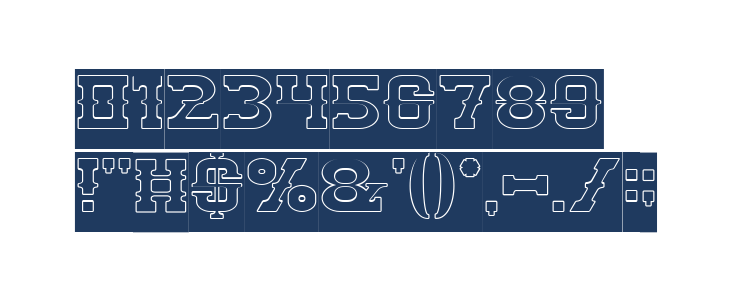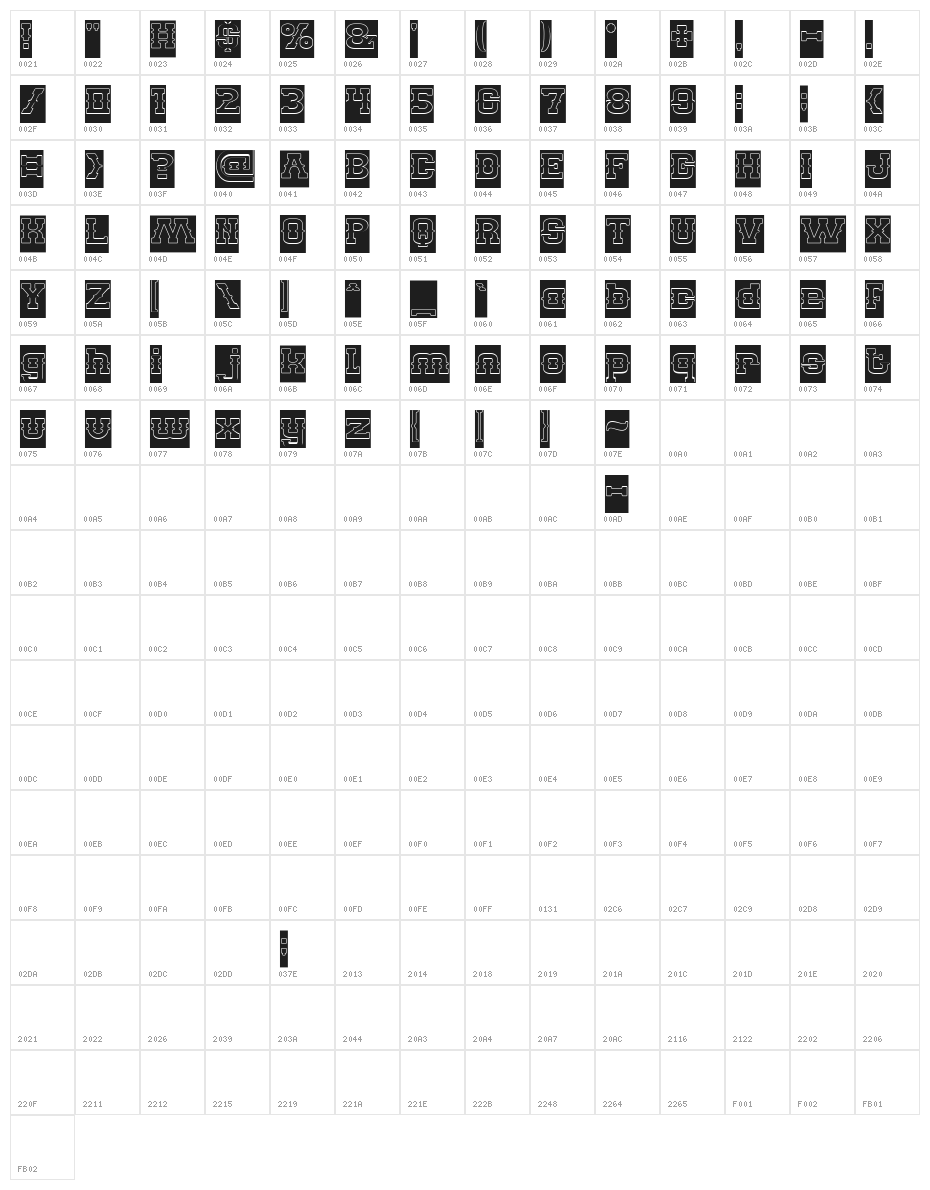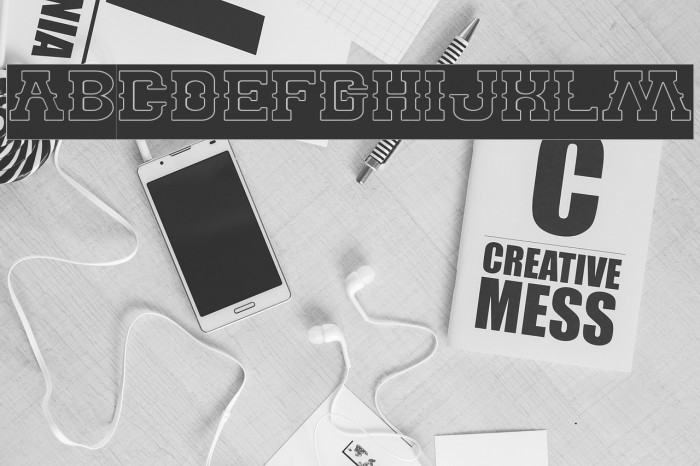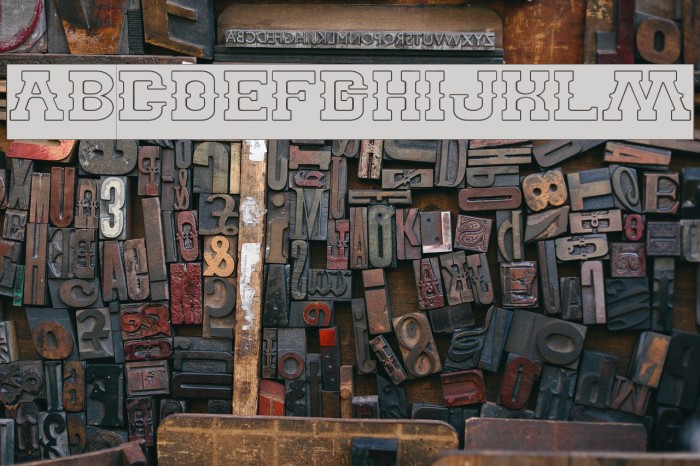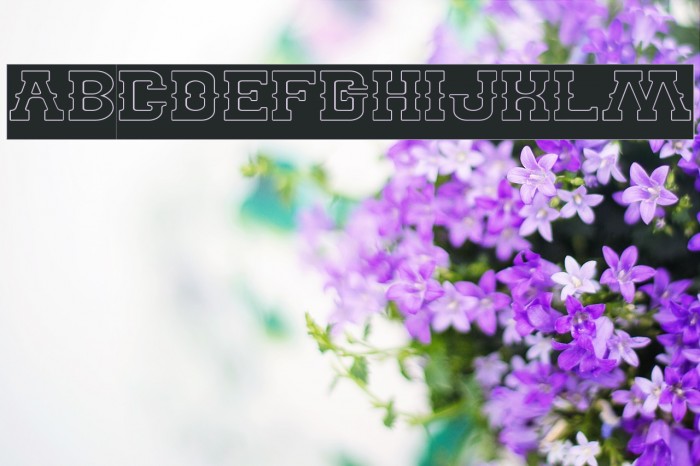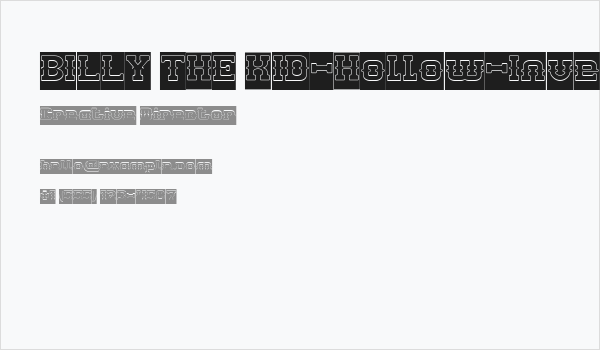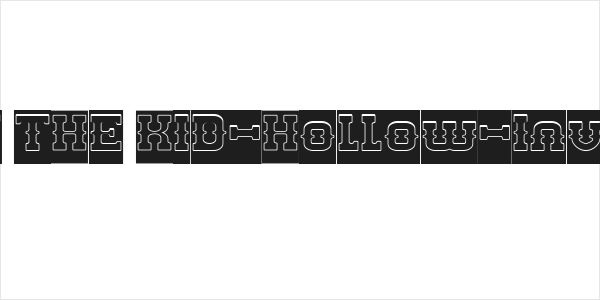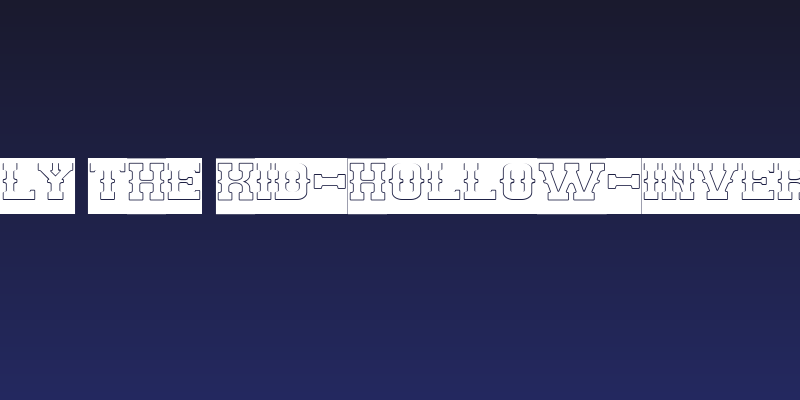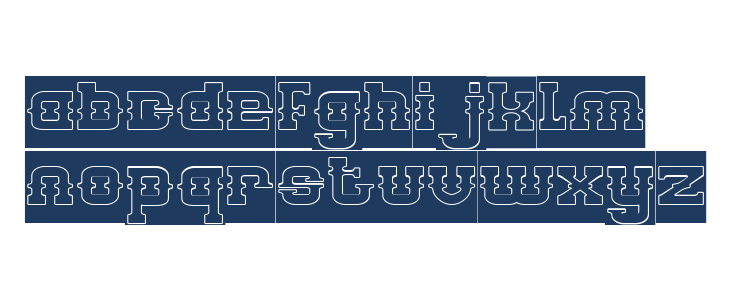
BILLY THE KID-Hollow-Inverse Font
BILLY THE KID-Hollow-Inverse Description
This font features a bold, hollow design with an inverse style, creating a striking visual impact. The uppercase and lowercase letters maintain a consistent width, with sharp, angular edges that give it a modern and edgy appearance. The numbers and special characters follow the same design principles, ensuring uniformity across all glyphs. The hollow effect adds depth and dimension, making it ideal for eye-catching designs. The font's unique style is both decorative and functional, suitable for projects that require a bold statement.
| Proposed Projects | Ideal for posters, logos, headlines, and branding materials that require a bold and distinctive appearance. |